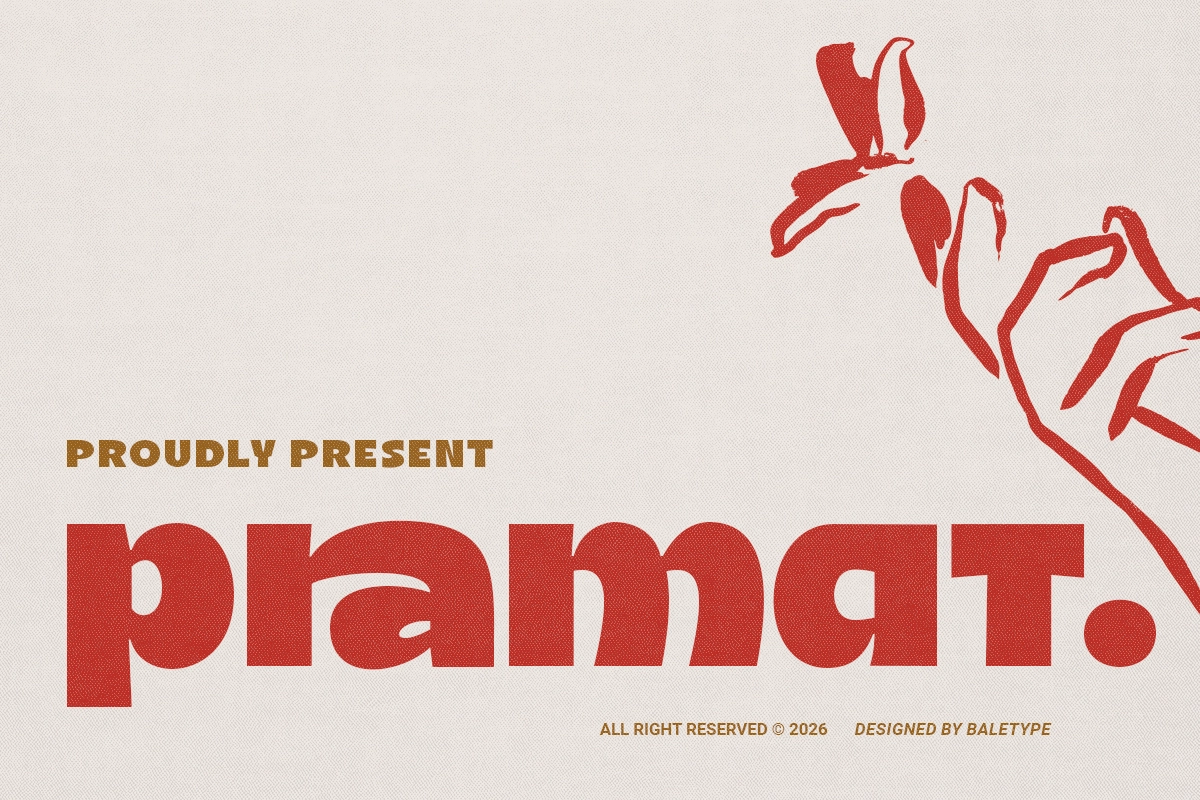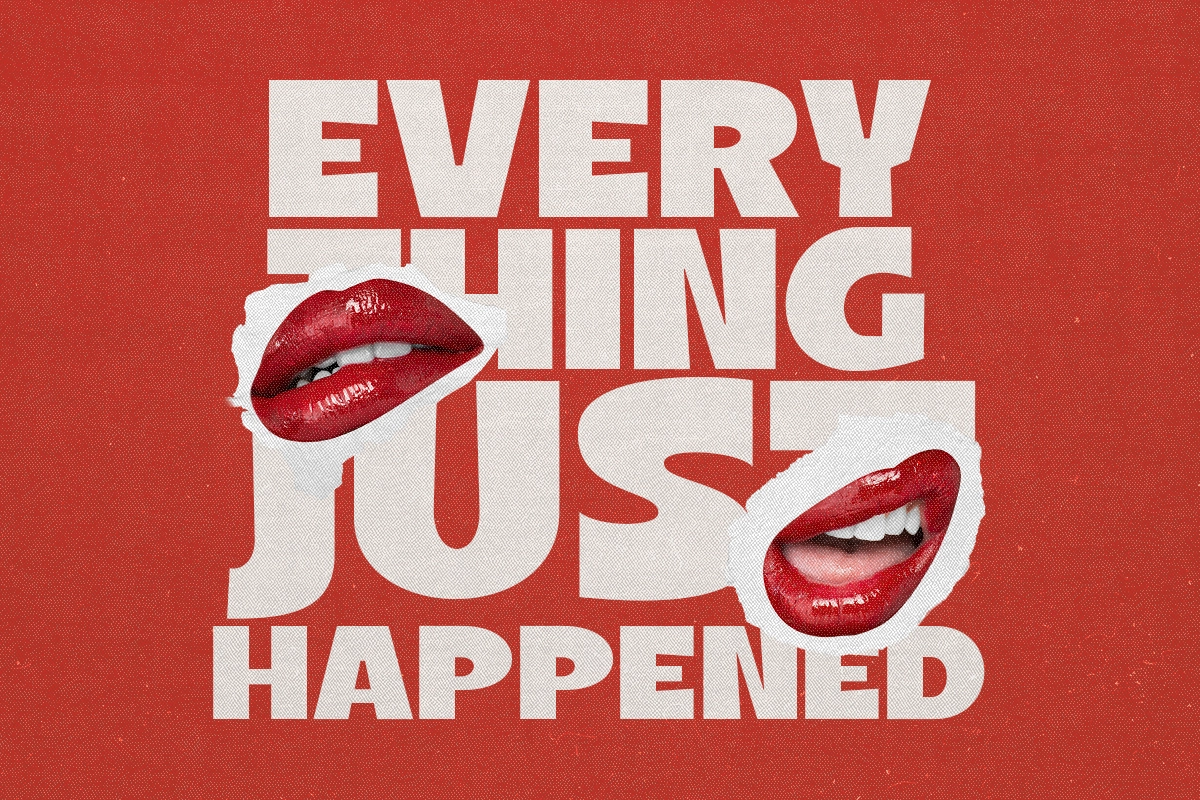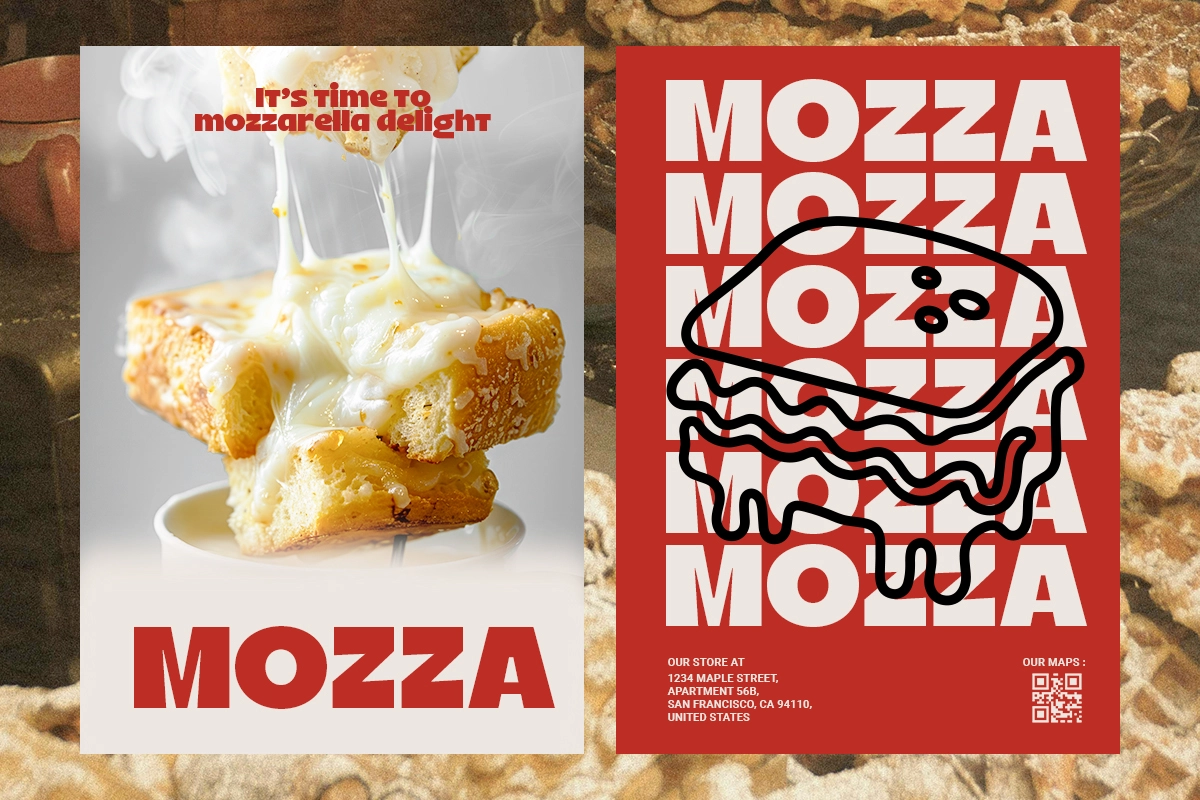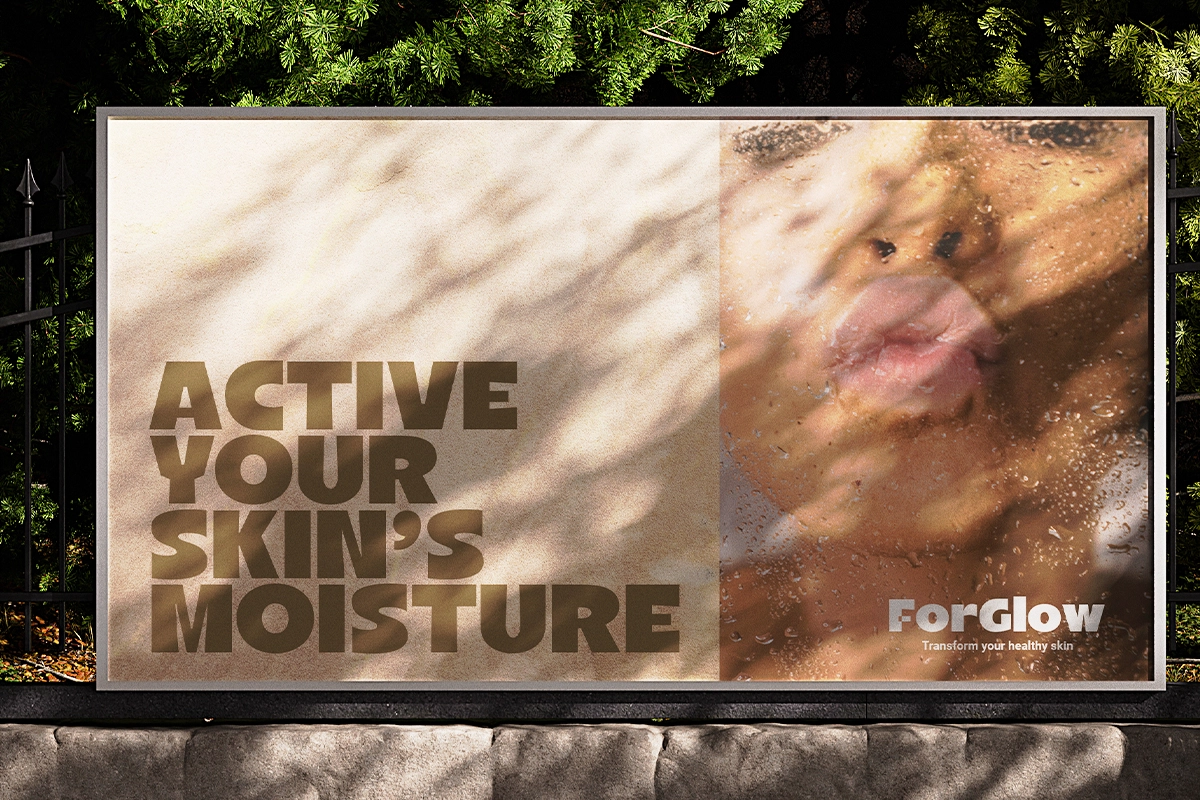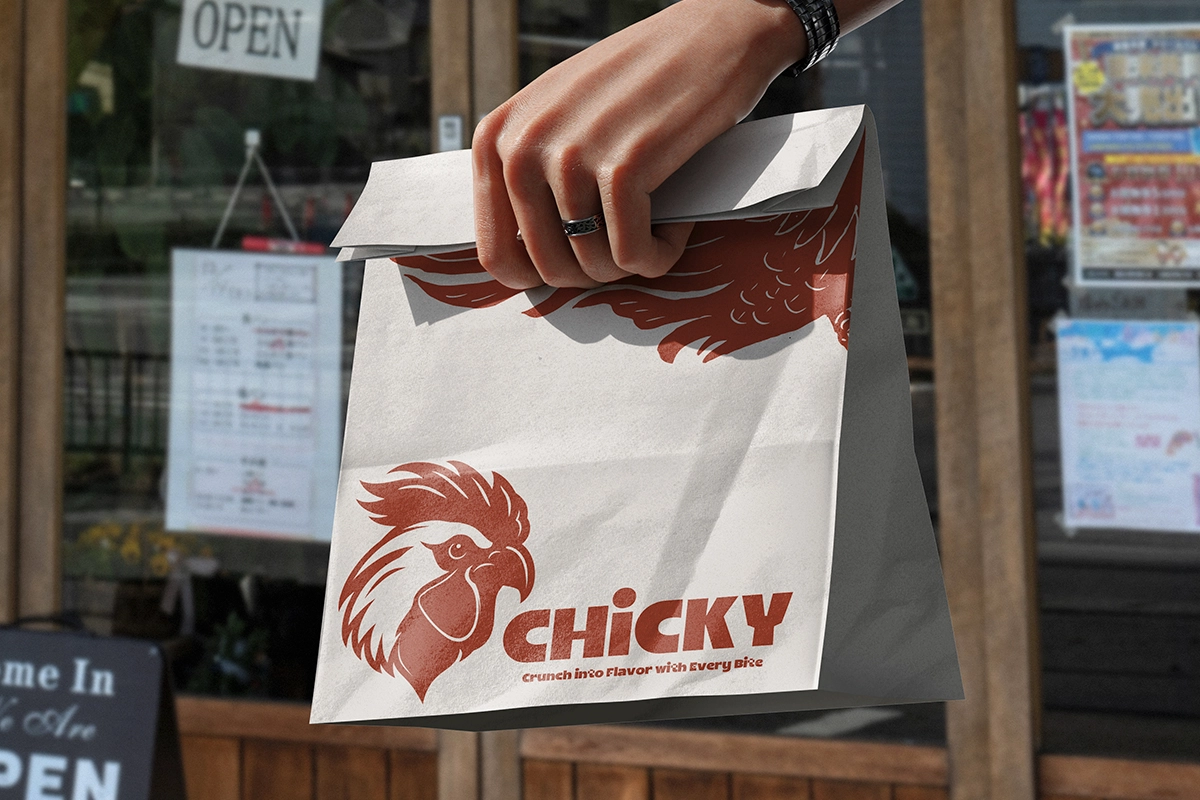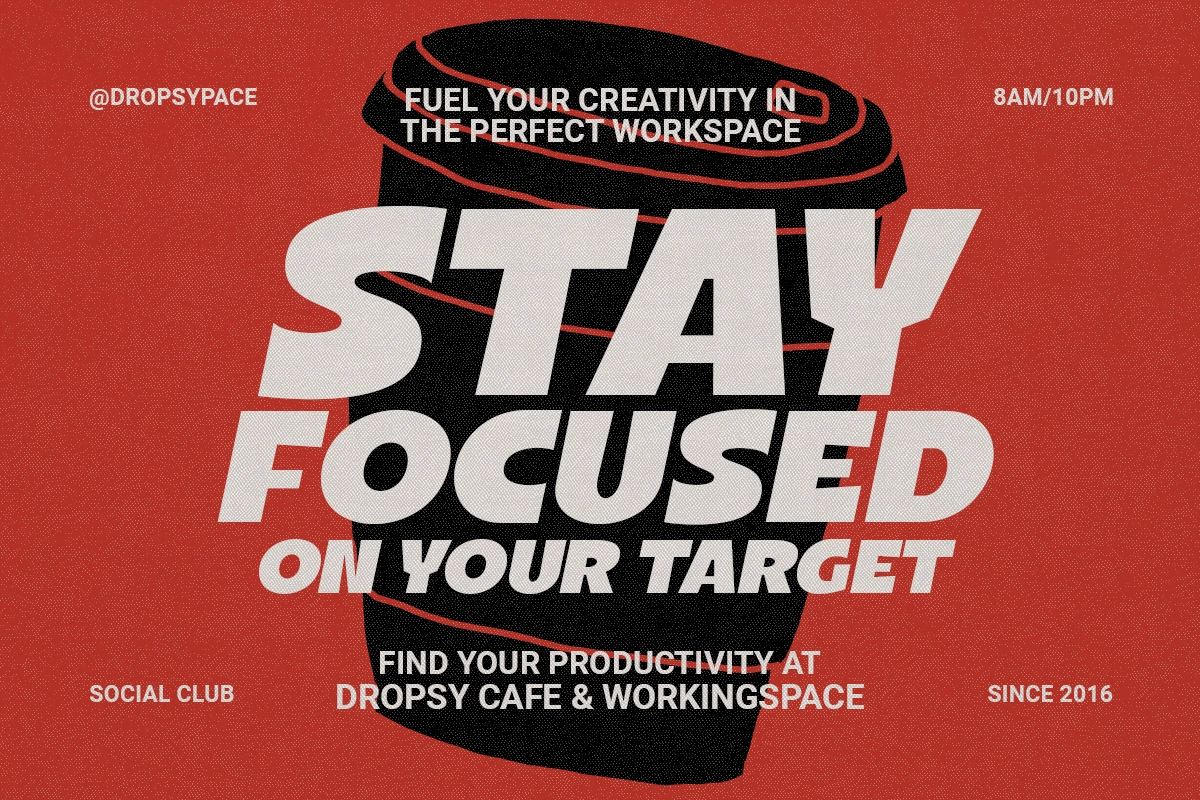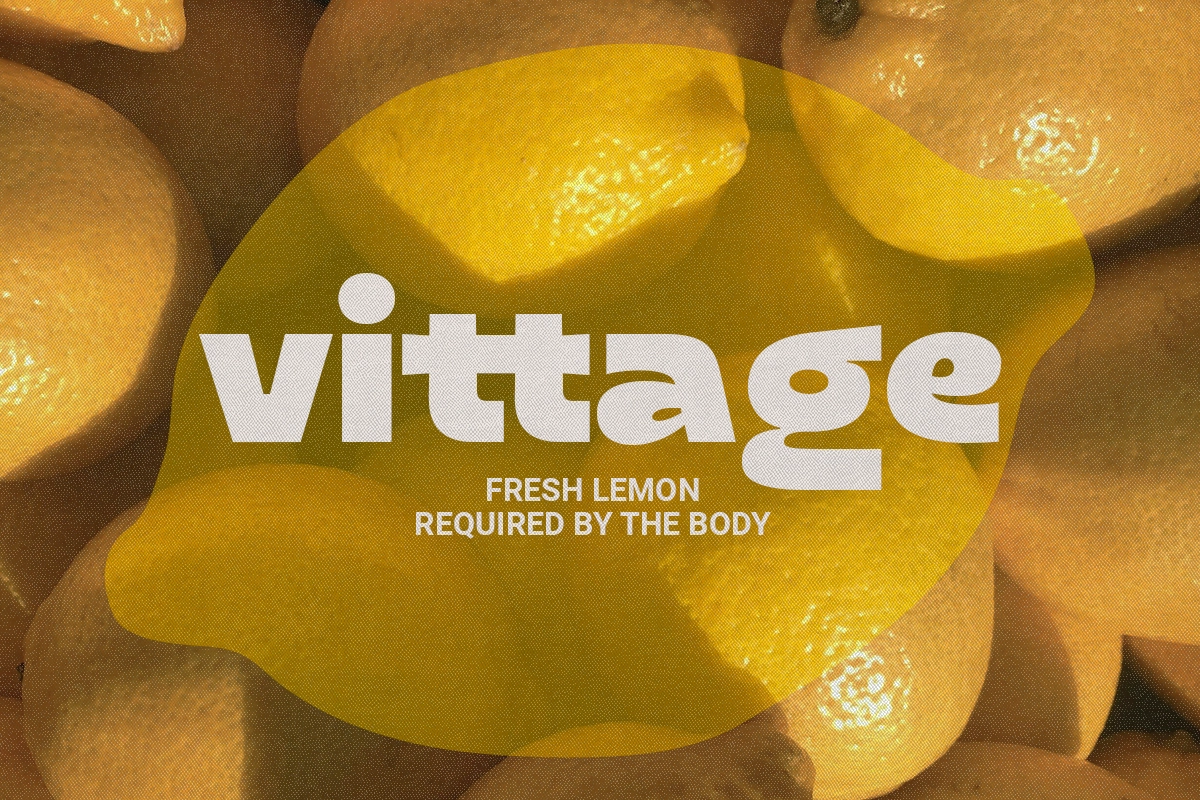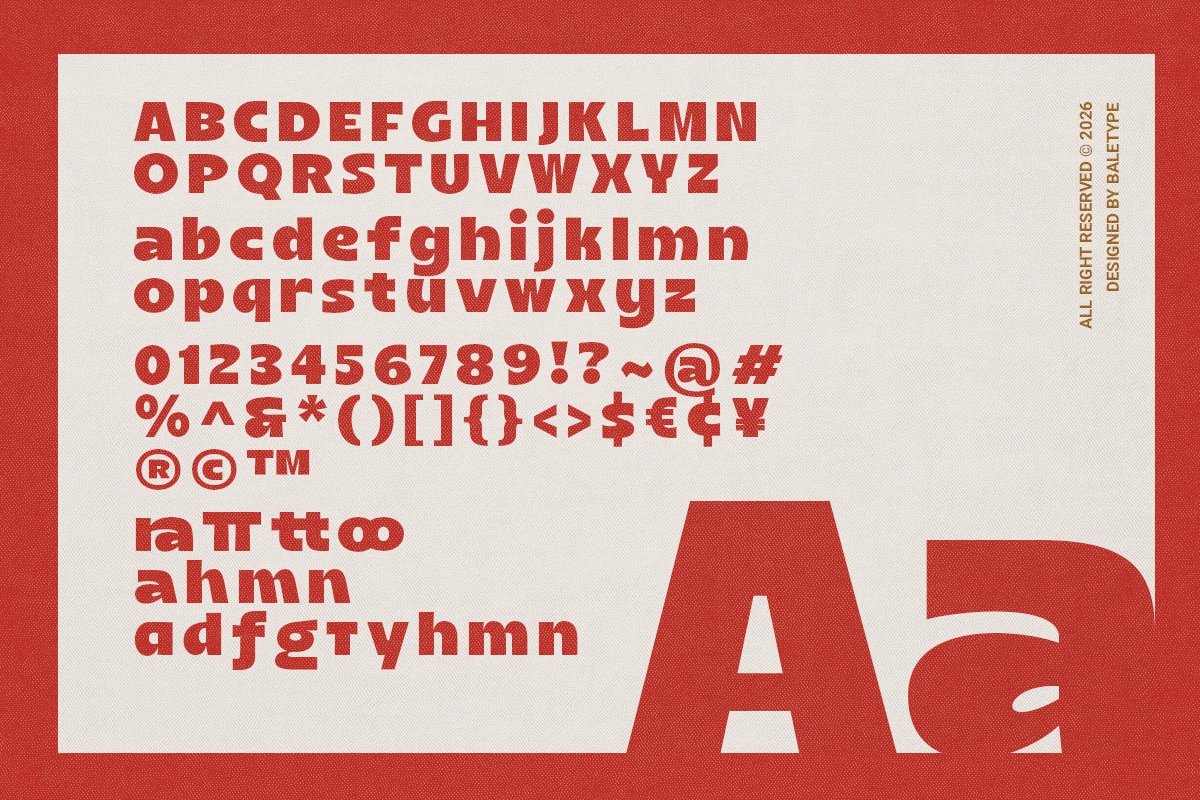
Pramat - Bold Display Sans
Pramat - Bold Display Sans is a modern bold sans serif designed to deliver strong visual impact with a clean, contemporary edge. Its thick letterforms, smooth curves, and confident presence make it ideal for eye-catching headlines, branding, and editorial layouts that demand attention.
Built with stylistic alternates and ligatures, Pramat gives you flexibility to create expressive typography while maintaining clarity and balance. Whether you're working on posters, logos, café branding, or social media graphics, this font brings a bold and stylish voice to your designs.
- Numbers & punctuation
- Italic and regular style